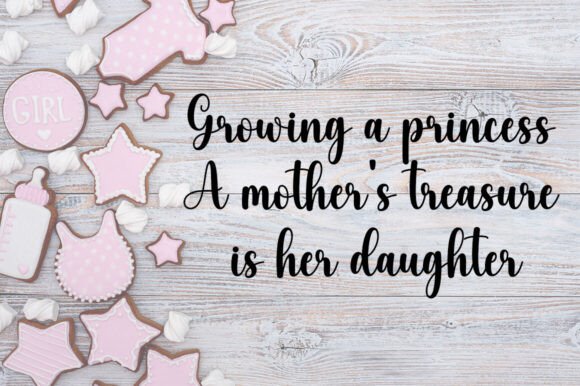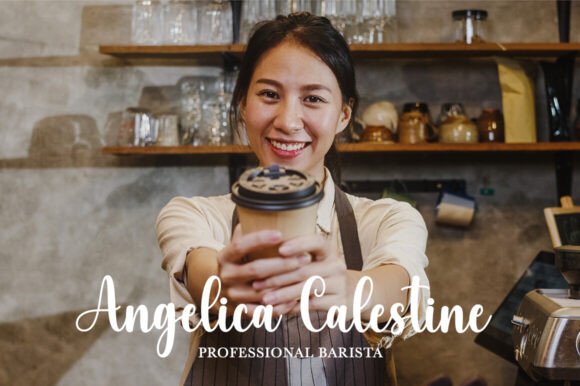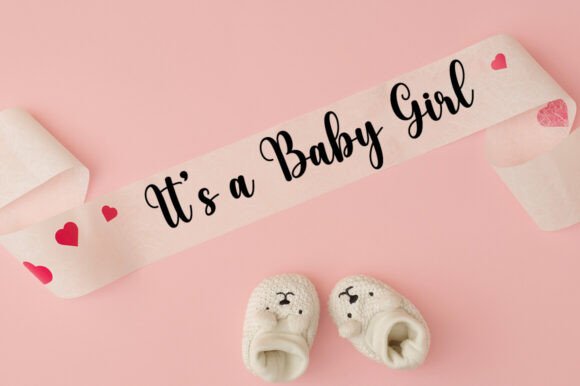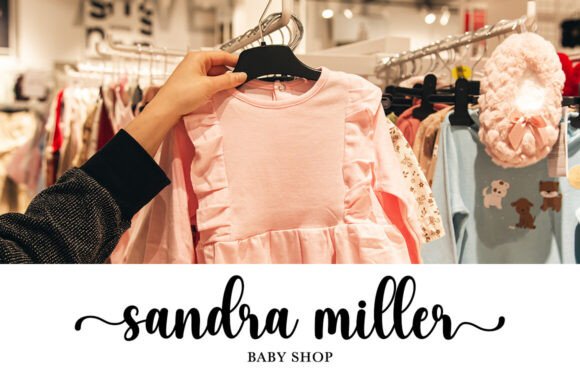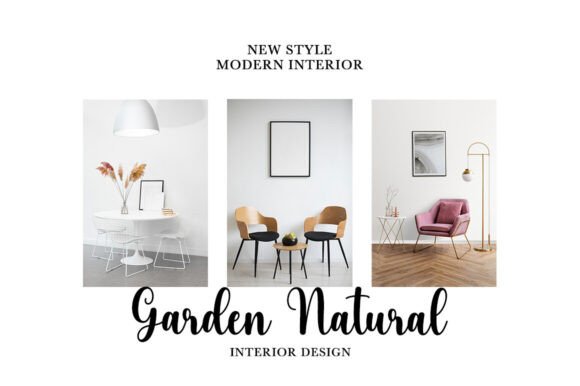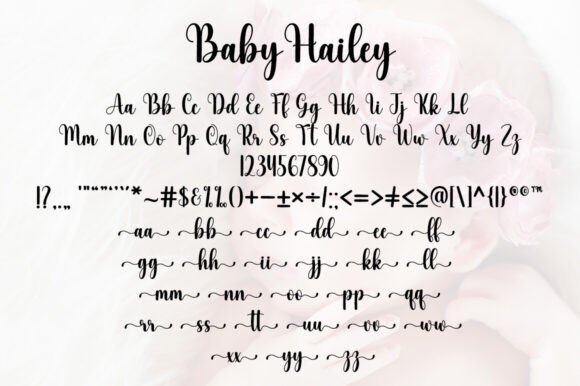
Introduction to Baby Hailey Font
Baby Hailey script is a modern calligraphy design including Regular.
This font is casual and beautiful with swashes Can be used for various purposes such as logos, product packaging, wedding invitations, branding, headlines, signage, labels, signatures, book covers, posters, quotes, and much more.
Key Features of Baby Hailey Font
Why Choose Baby Hailey Font?